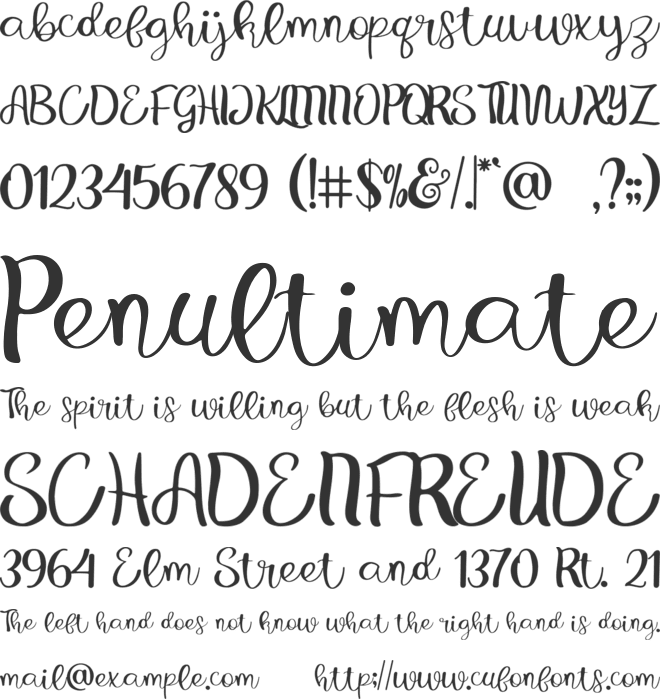
Hello My Love Font
Hello my love is a romantic handwritten font with nicely curved characters and a cursive style! Add it to your most creative ideas, and notice how it makes them come alive!